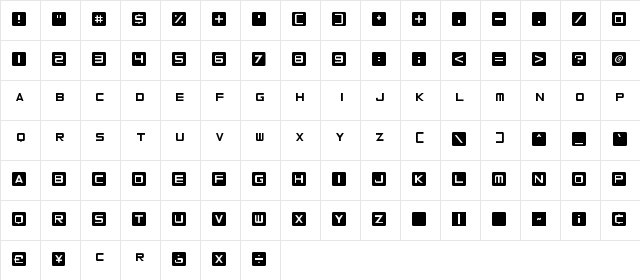
Curved Square Regular
Designer: Darrell Flood
Design Context for Curved Square
Curved Square is a composed and adaptable typeface that performs quietly and consistently across a wide range of design contexts.